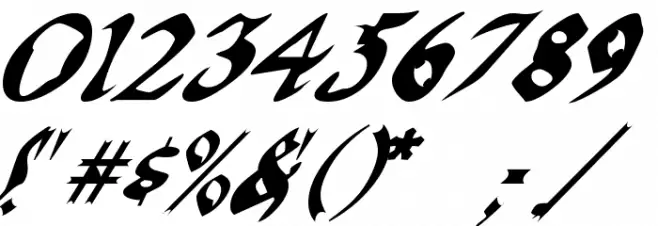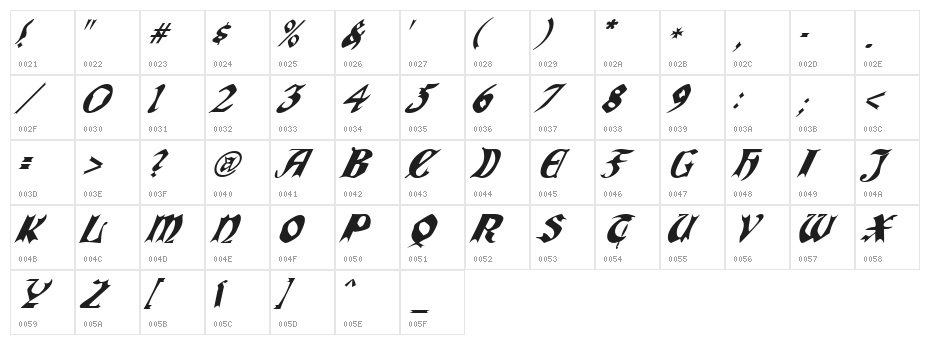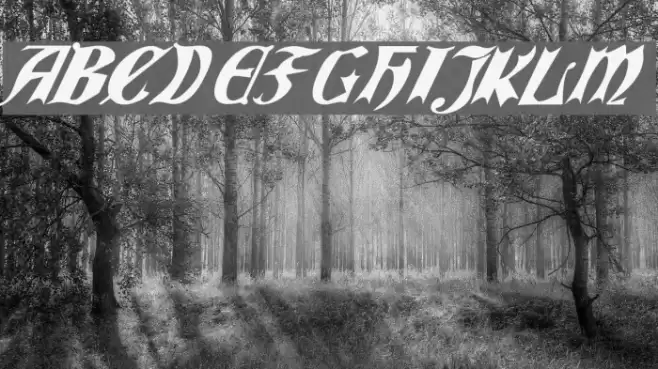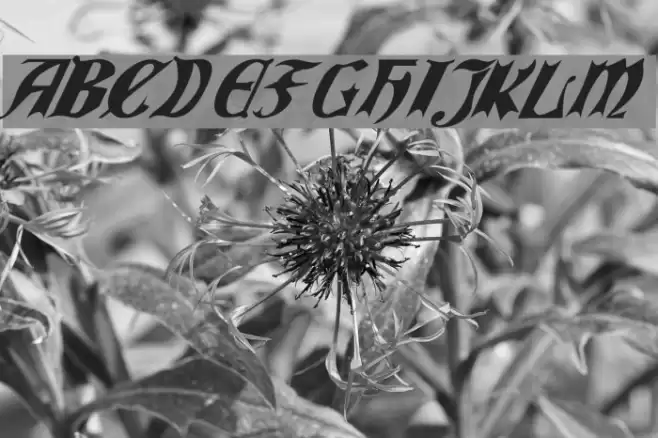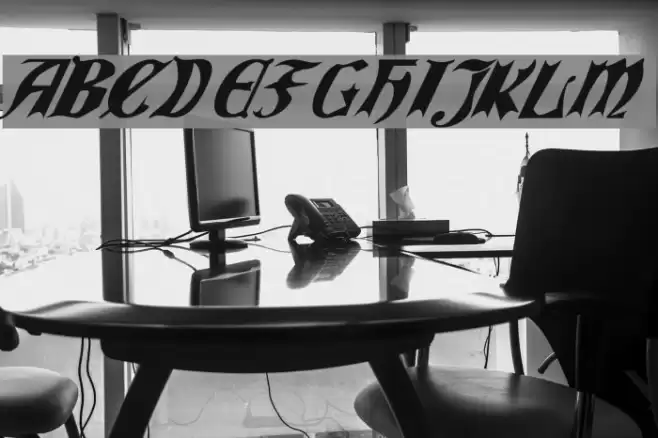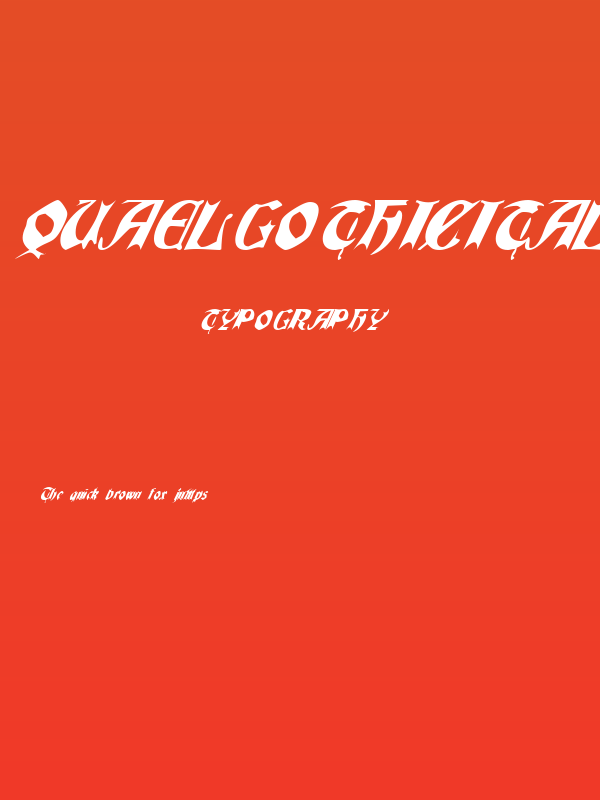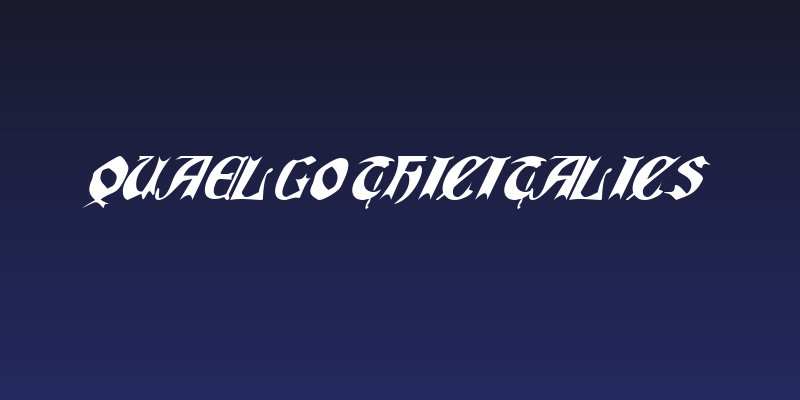
QuaelGothicItalics Font
QuaelGothicItalics Description
This font features a bold and dynamic style with sharp, angular strokes that give it a gothic and edgy appearance. The letters are italicized, adding a sense of movement and flair. The uppercase and lowercase characters maintain a consistent design, with exaggerated serifs and pointed edges that create a dramatic effect. The numbers and special characters follow the same stylistic approach, ensuring uniformity across all glyphs. This font's unique design makes it stand out, perfect for projects that require a strong visual impact.
Overall StyleGothic, Decorative
Proposed ProjectsIdeal for album covers, posters, branding for edgy or alternative products, and any design needing a bold statement.